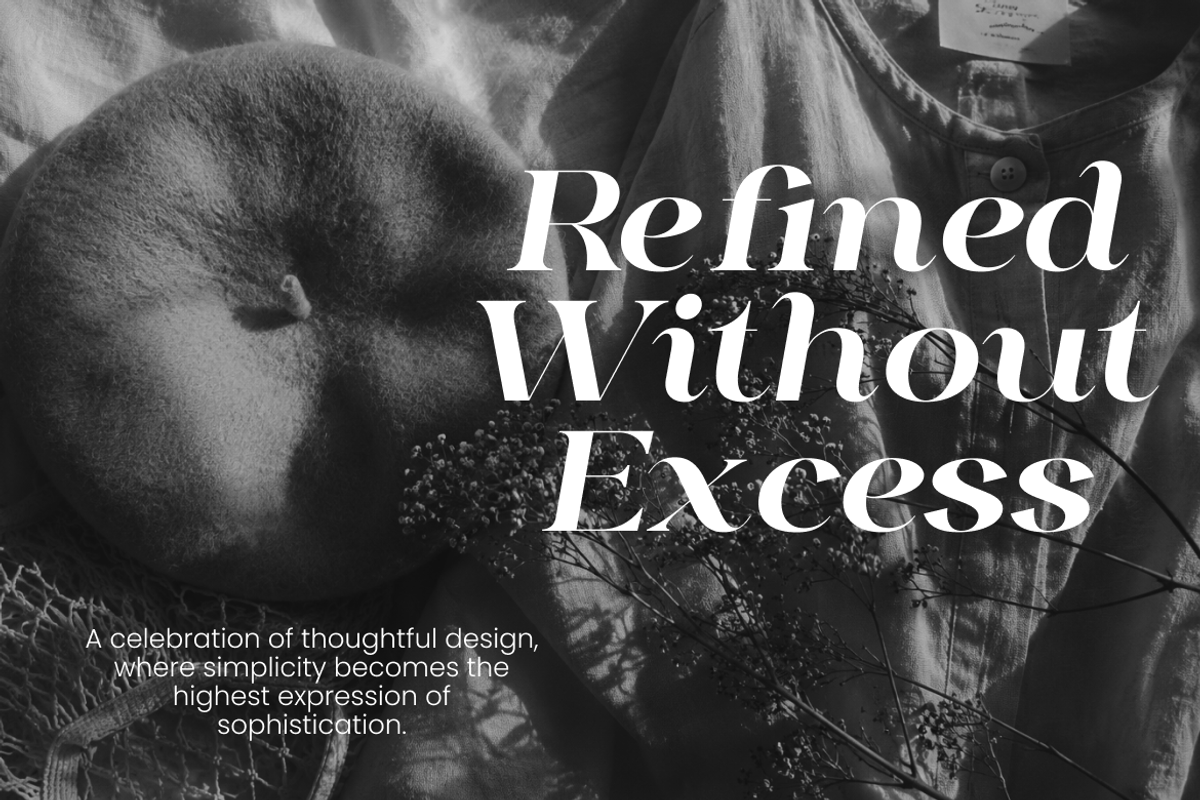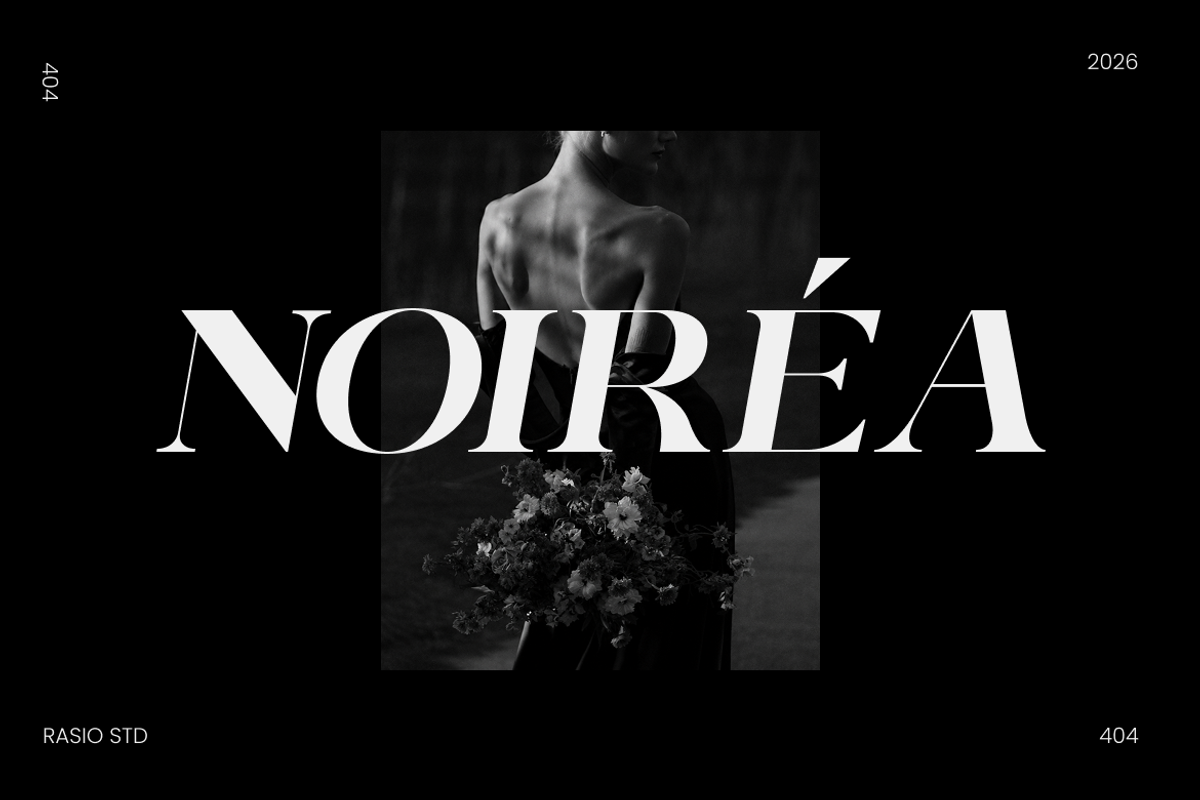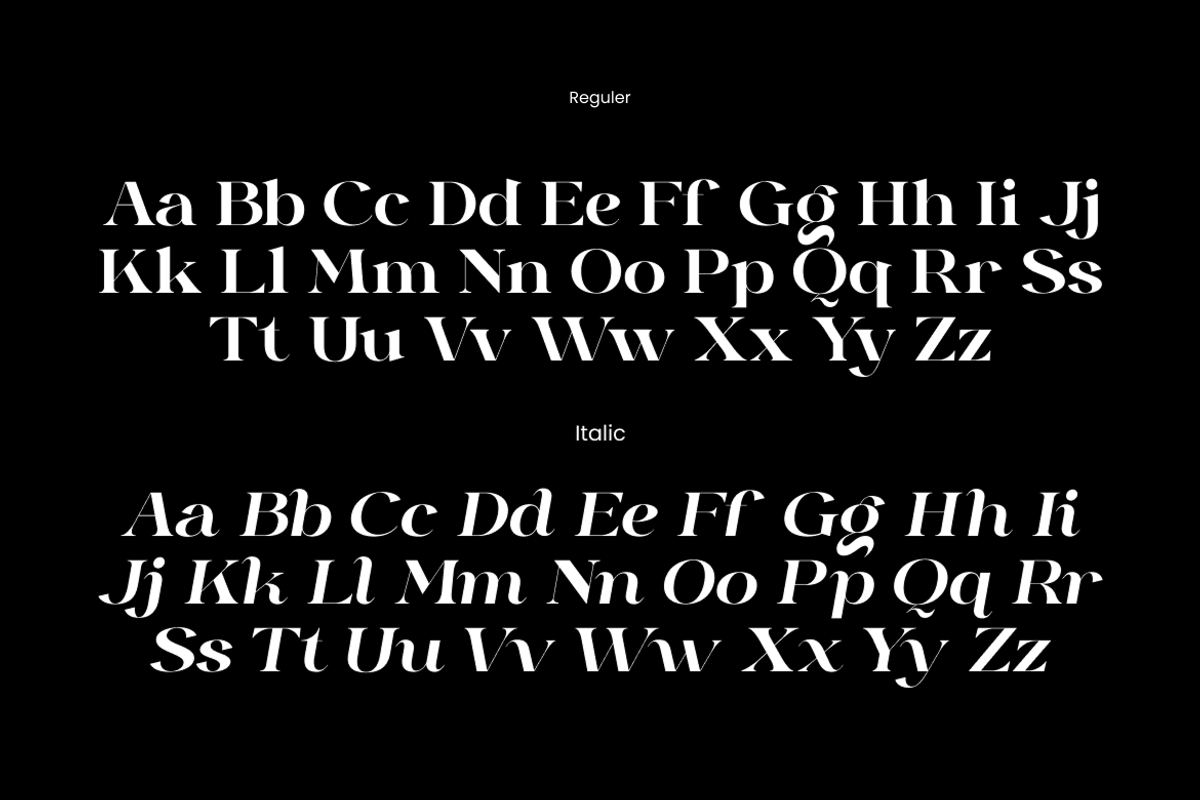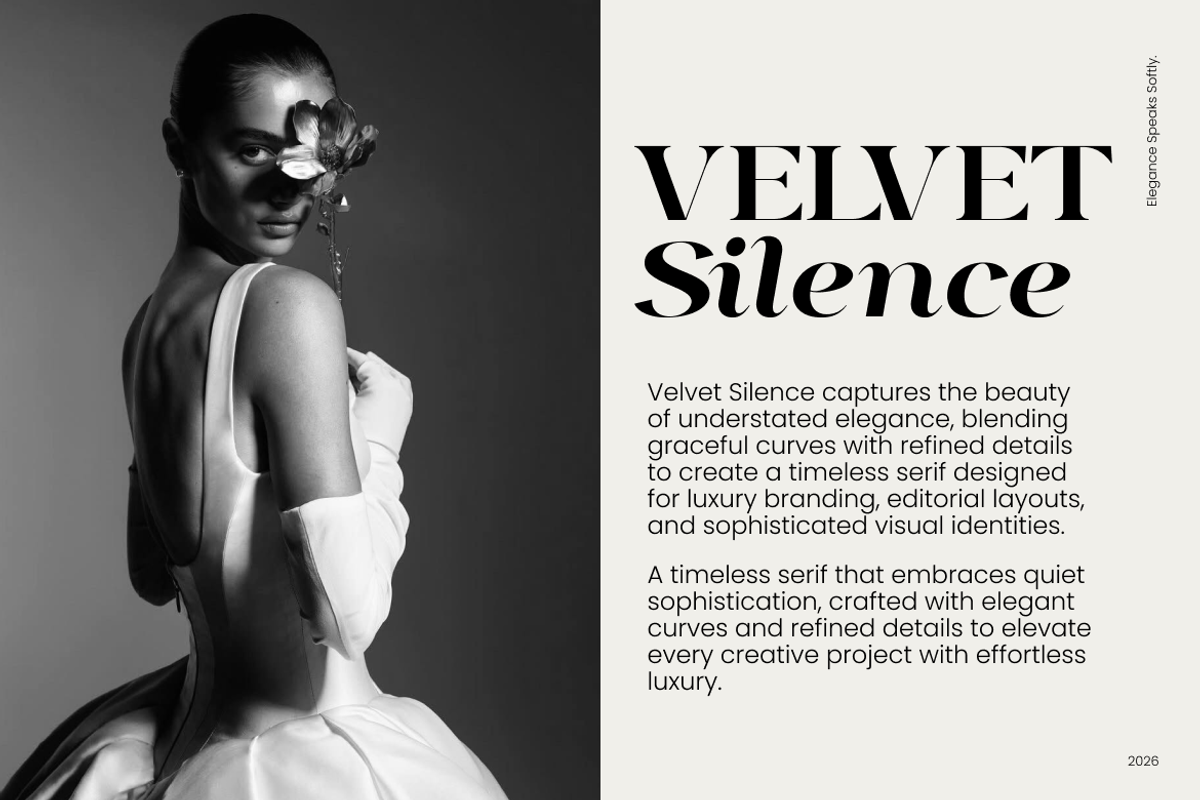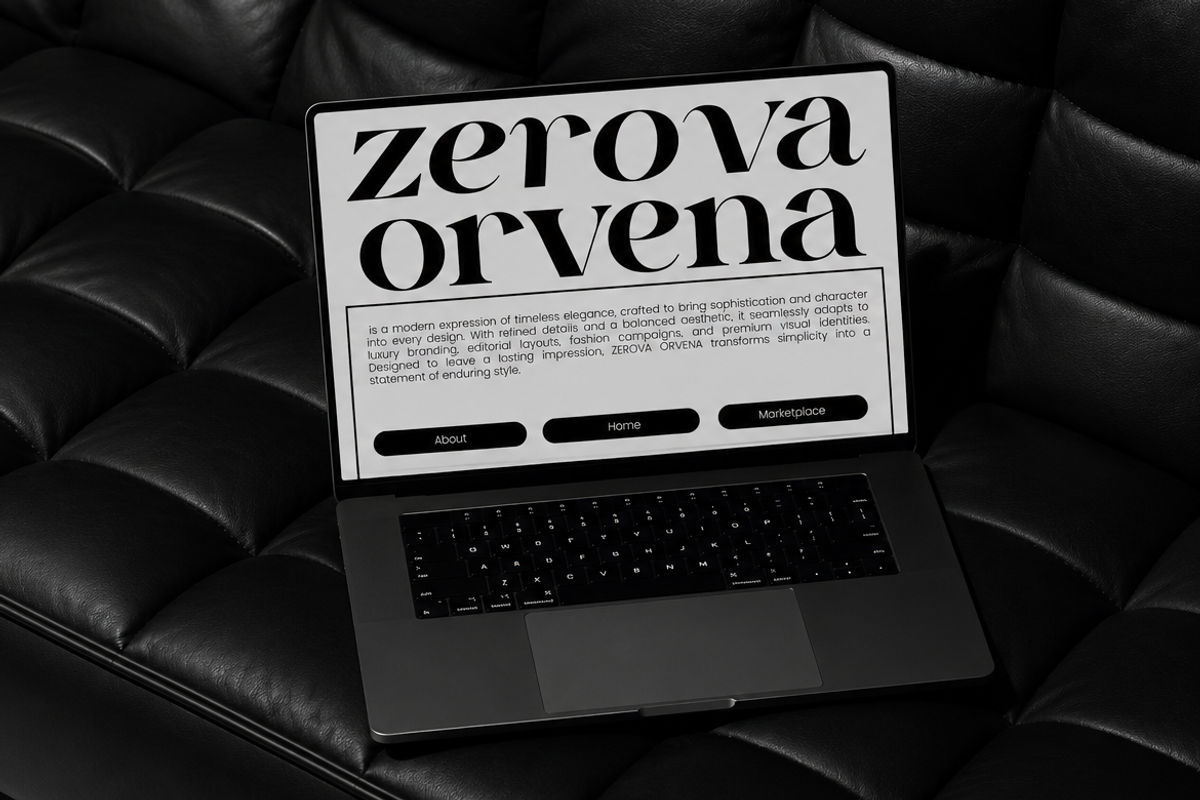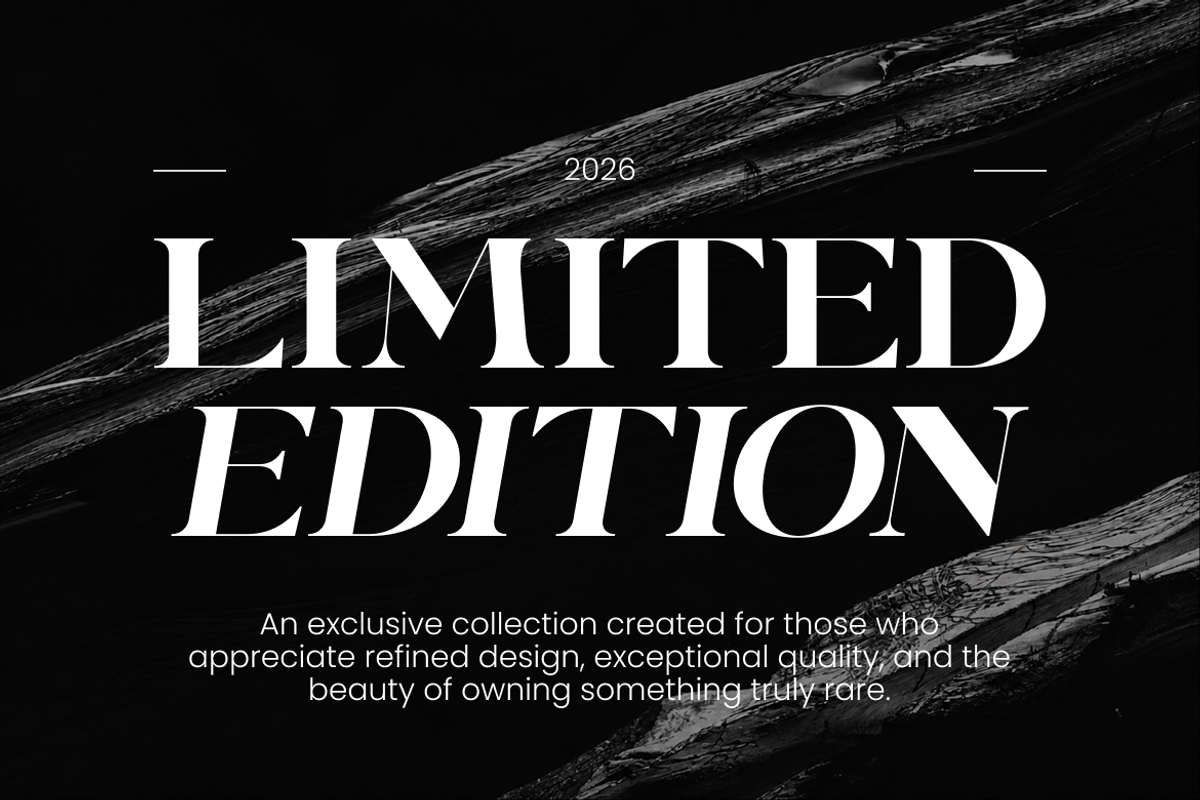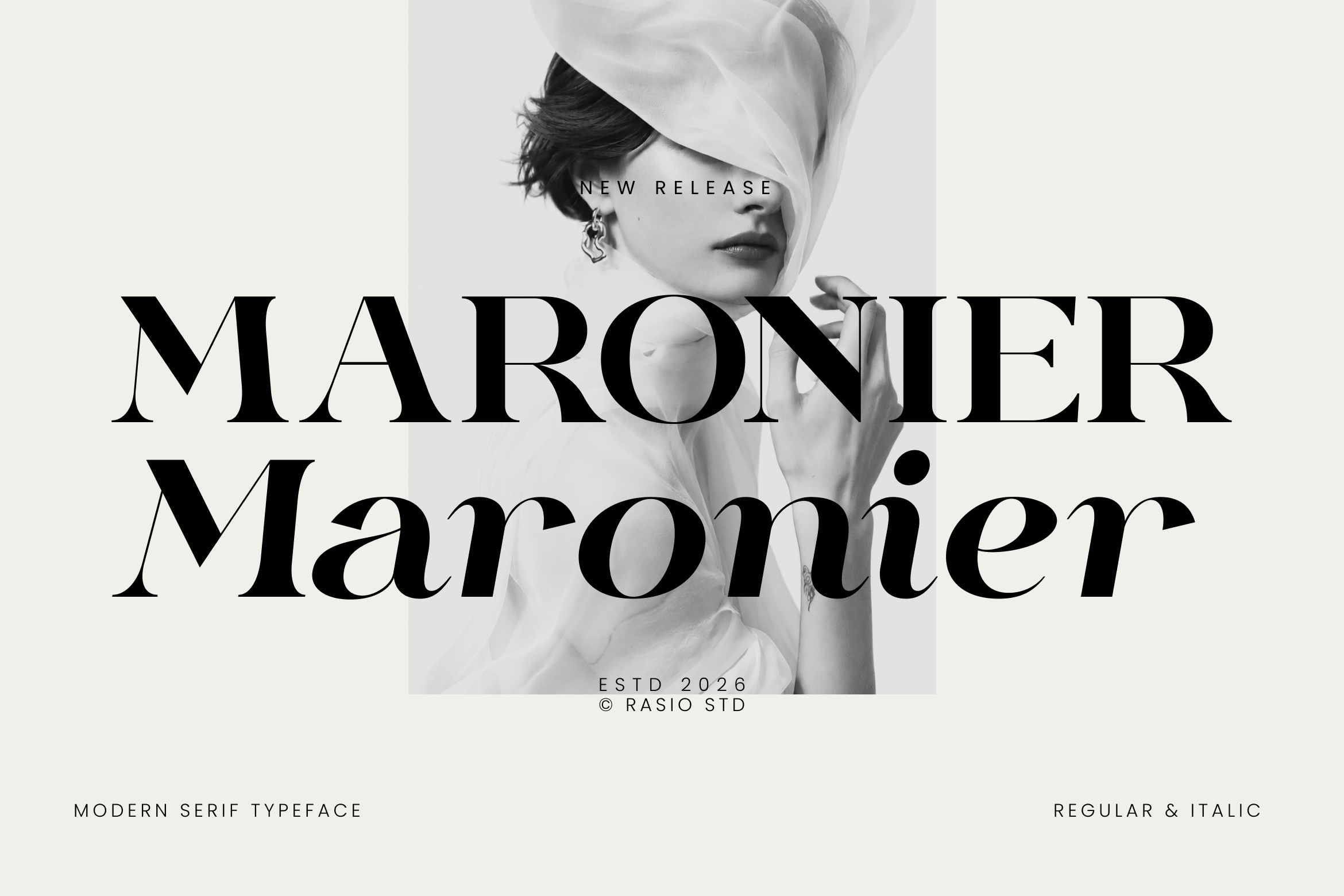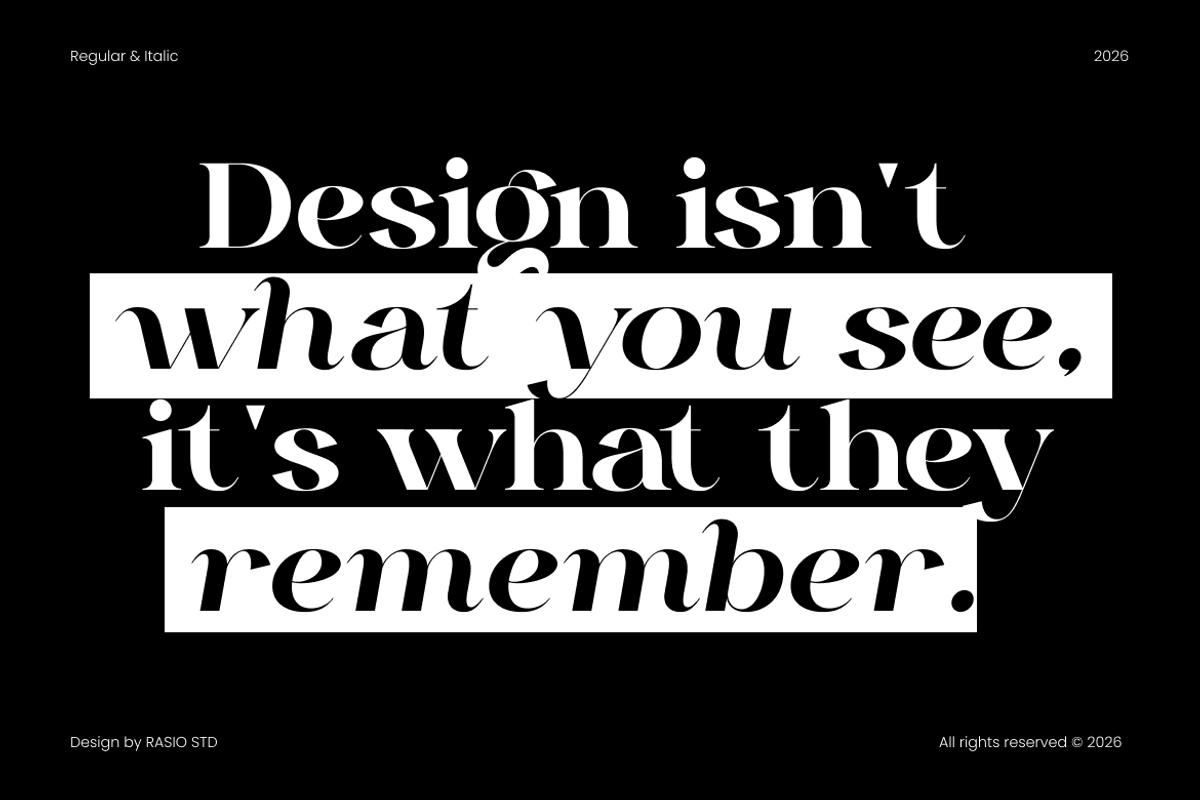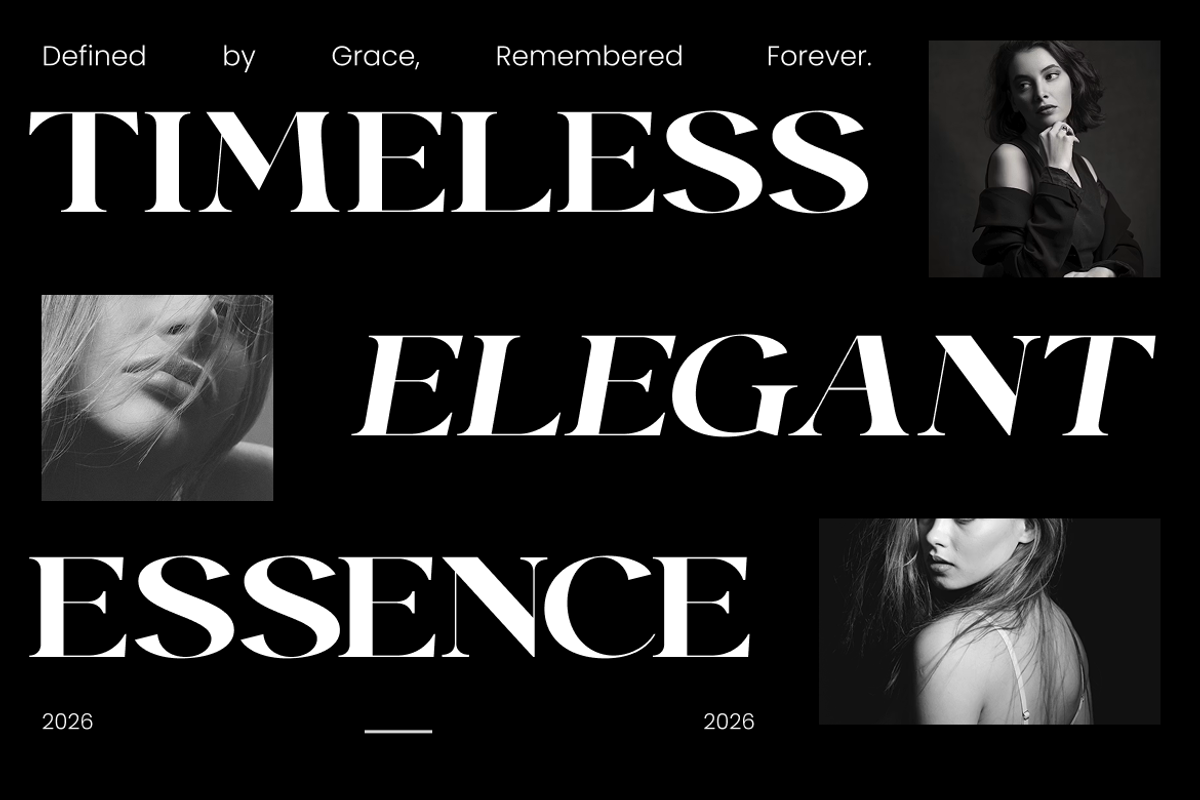
Maronier Modern Serif Typeface Font
Maronier Modern Serif Typeface Font is a sophisticated modern serif typeface that blends timeless elegance with contemporary refinement. Designed with striking high-contrast strokes, graceful curves, and precisely sculpted serifs, it creates an unmistakable luxury aesthetic while maintaining exceptional readability. The refined proportions and confident letterforms make every headline, logo, and editorial composition feel polished, premium, and effortlessly stylish.
Maronier performs beautifully across luxury branding, fashion campaigns, beauty packaging, jewelry collections, cosmetic labels, editorial magazines, premium invitations, wedding stationery, hotel branding, product packaging, and high-end digital experiences. Whether used for bold headlines or refined logotypes, the typeface conveys confidence, exclusivity, and timeless sophistication while remaining versatile for contemporary design. Carefully balanced between classic typography and modern minimalism, Maronier features elegant vertical stress, smooth transitions between thick and thin strokes, and refined spacing that allows each character to breathe naturally.
High-contrast serif construction inspired by contemporary luxury editorial typography
Gracefully sculpted serifs that create an elegant and sophisticated appearance
Smooth transitions between thick and thin strokes for refined visual rhythm
Balanced proportions with generous spacing for premium readability
Available in Regular and Italic styles for expressive typography and flexible layouts
Luxury fashion brands, jewelry collections, and premium cosmetic identities
Editorial magazines, book covers, and sophisticated publication layouts
Wedding invitations, event stationery, and upscale celebration materials
Boutique packaging, perfume labels, and premium product branding
Logos, visual identities, social media campaigns, and high-end marketing materials.
Screen-optimized kerning for responsive web design
Supports numerals, punctuation, and extensive symbol set
Bring refined elegance to every project with Maronier